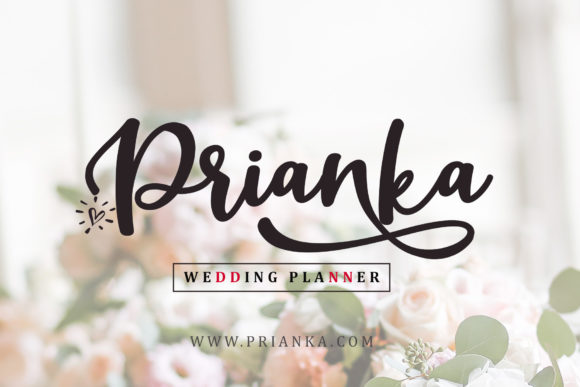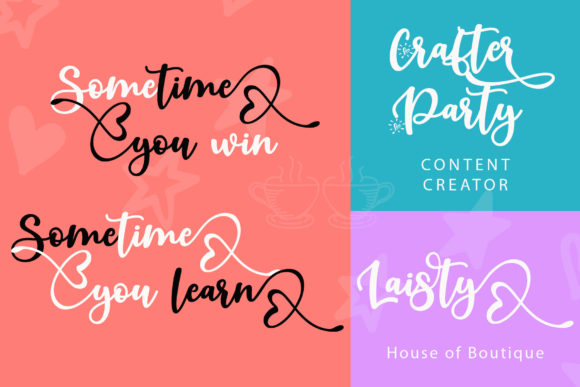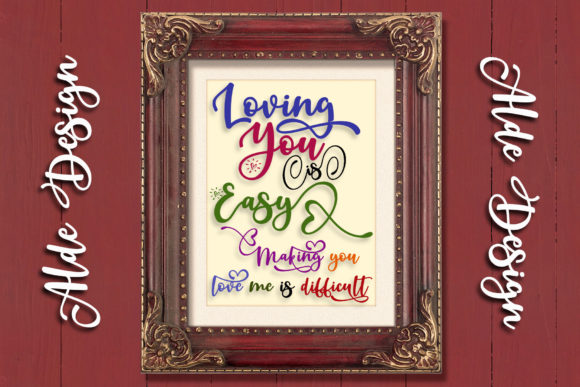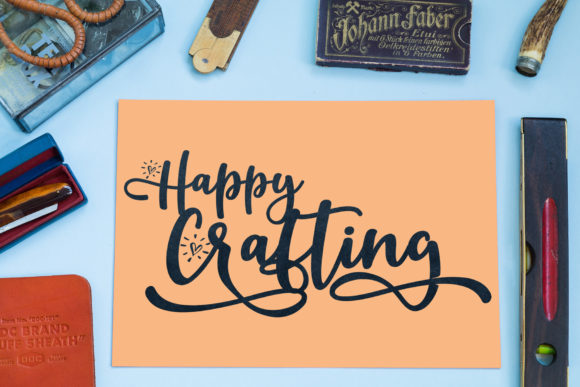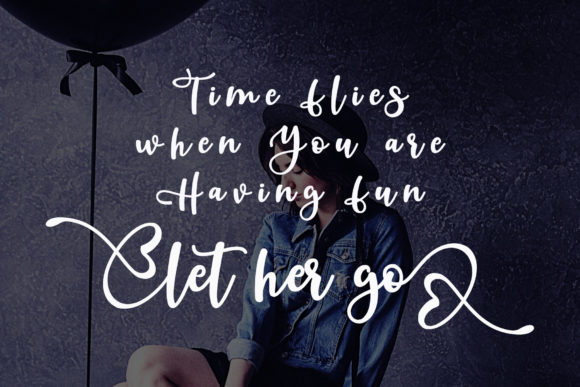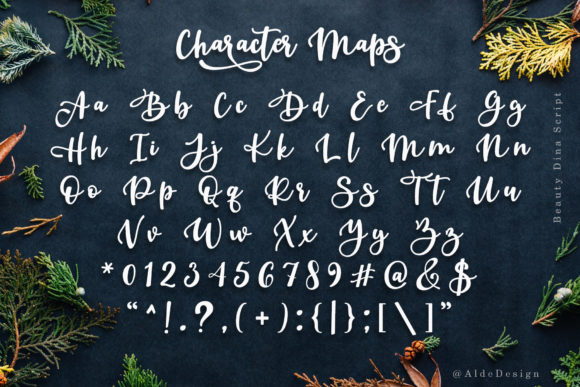
Discover the Magic of Beauty Dina Font
Have you ever sat down with a blank canvas, a blank page, or a blank digital screen, and felt the rush of creativity wash over you? The world is your oyster, and anything seems possible. It’s in these moments that we’re reminded of the beauty of creativity, and the importance of having the right tools to bring our visions to life.
Enter the stunning Beauty Dina Font, a script font that will add a touch of elegance and sophistication to your next crafting project. Whether you’re a seasoned designer or a hobbyist, Beauty Dina Font is the perfect addition to your toolkit. Its versatility and beauty make it a valuable asset for designers looking to add a personal touch to their work.
With Beauty Dina Font, the possibilities are endless. From wedding invitations to greeting cards, and from book covers to social media graphics, this font is sure to elevate your designs and leave a lasting impression.
Beauty Dina Font Key Features
- Font Family: Beauty Dina
- Character Set: Latin, Cyrillic, Greek, and Extended Latin
- Unique Characteristics: This font features a modern and elegant design with a mix of geometric and organic shapes, making it perfect for fashion, beauty, and lifestyle branding.
Beauty Dina Font Review
Overall, I was excited to dive into the Beauty Dina Font, but my experience was a mixed bag. Let’s start with the positives. ✨ I love the elegant and sophisticated feel of this script font, perfect for high-end beauty brands or luxury products. The flowing connections between letters give it a smooth and refined appearance. It’s also versatile, suitable for both digital and print applications.
Here are some of its standout features:
- ✨ Beautifully connected letterforms, creating a cohesive and polished look
- ✨ Elegant and sophisticated feel, perfect for luxury brands
- ✨ Wide range of weights and styles to suit various design needs
However, I did encounter some limitations. ⚠️ One major drawback is the lack of character set support. This means it’s not suitable for languages that require a broader character set, limiting its usability. Additionally, the font may not be ideal for body text, as it’s more suited for headings and titles.
Overall, Beauty Dina Font is a great choice for specific design applications, particularly where elegance and sophistication are key. While it has its limitations, it’s a solid addition to any designer’s toolkit.